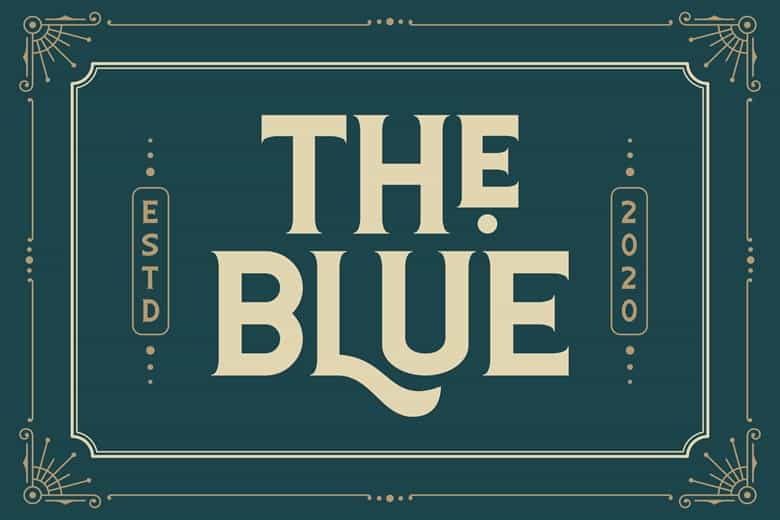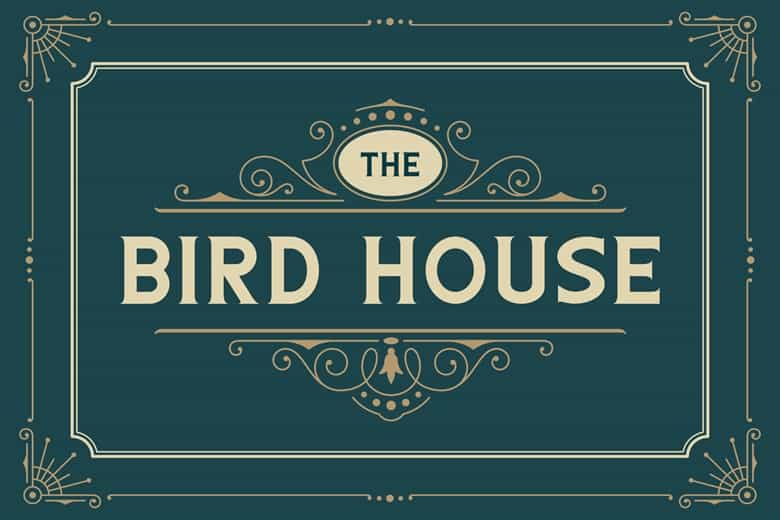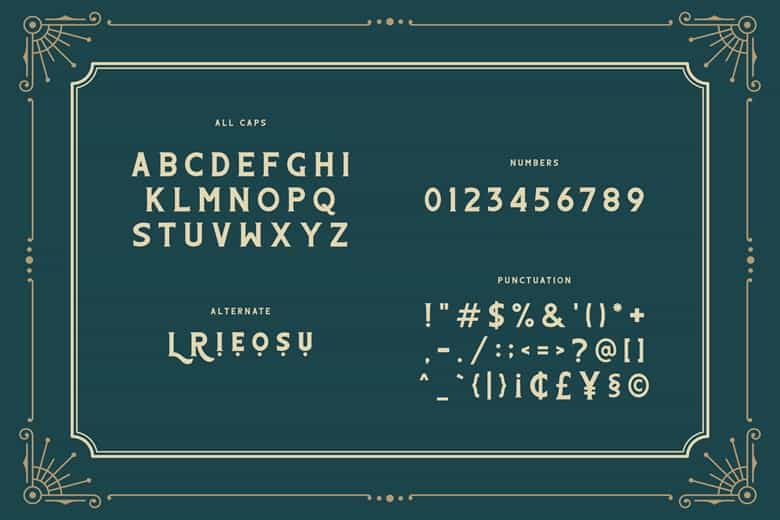
The Blue is very playful and offers the listener an amazing retro vibe. This font type should be used to add that special retro feel to any concept that can be imagined by anyone.